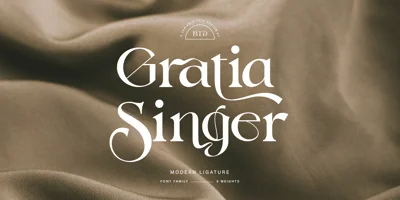
Gratia Singer Font
The Gratia Singer Font excels in various design applications including musical performance branding, vocal artist promotions, concert poster design, recording studio communications, music festival materials, opera house signage, choir program layouts, musical theater marketing, symphony orchestra identities, and melodious cultural projects that demand harmonic elegance and artistic sophistication.
What makes the Gratia Singer Font exciting is its beautiful fusion of graceful typography with musical expression through letterforms that capture the flowing melody and emotional resonance of vocal performance. This typeface embodies the essence of musical artistry through carefully crafted characters that suggest the rise and fall of melodic lines, the breath control of professional singers, and the graceful movement that accompanies beautiful vocal expression. The font's melodic personality makes it perfect for musical organizations and performing artists seeking to communicate artistic excellence, emotional depth, and the transformative power of vocal music through typography that literally sings with grace and sophistication.
The Gratia Singer Font family typically includes harmonious weight variations that reflect different vocal ranges, featuring flowing italic styles with musical flourishes and lyrical decorative elements. These family options often include performance-inspired alternates, musical symbols, and artistic ornaments that provide designers with comprehensive tools for creating authentically musical typography that celebrates vocal artistry while maintaining contemporary design appeal and professional presentation standards.
Music industry professionals and performing arts organizations consistently choose Gratia Singer Font for projects requiring typography that communicates artistic excellence and musical sophistication. This typeface delivers exceptional performance in concert promotions, musical branding, and artistic communications where establishing cultural credibility and inspiring appreciation for vocal artistry is essential for audience engagement. The font's musical character makes it particularly effective for classical music and opera applications. Download Gratia Singer Font today to access this melodious typeface that transforms musical communications with its graceful artistry and harmonic sophistication, creating compelling artistic experiences that honor the beauty of vocal performance while inspiring deeper appreciation for the transformative power of music and the dedicated artistry of professional singers.